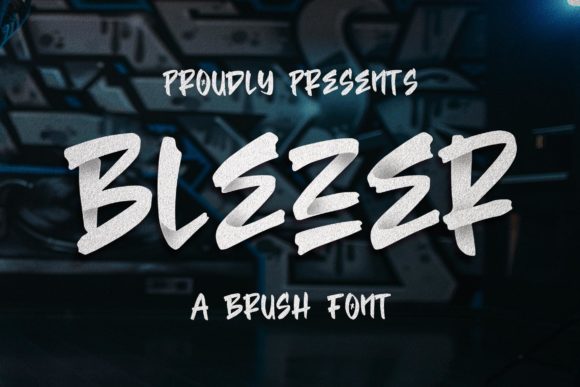
Blezer Font: A Bold and Powerful Display Font for Your Creative Projects
Are you looking for a font that can help your ideas stand out from the crowd? Look no further than the Blezer Font, a bold and chunky lettered brushed display font that’s perfect for designers and crafters who want to make a statement. With its dramatic and powerful style, Blezer Font is sure to grab attention and leave a lasting impression.
What is Blezer Font?
Blezer Font is a unique and eye-catching display font that’s designed to add a touch of drama and sophistication to your creative projects. Its bold and chunky lettering style, combined with a brushed effect, gives it a distinctive look that’s both modern and edgy. Whether you’re working on a logo, poster, or social media graphic, Blezer Font is the perfect choice for adding a bit of attitude and flair.
Key Features of Blezer Font
- Bold and Chunky Lettering: Blezer Font features bold and chunky lettering that’s perfect for headlines, titles, and other display text.
- Brushed Effect: The font’s brushed effect gives it a textured, hand-crafted look that’s both modern and edgy.
- Dramatic and Powerful: Blezer Font is designed to make a statement, with a dramatic and powerful style that’s sure to grab attention.
- Easy to Read: Despite its bold style, Blezer Font is easy to read, even at smaller sizes.
- Versatile: Blezer Font is perfect for a wide range of creative projects, from logos and posters to social media graphics and more.
Who is Blezer Font for?
Blezer Font is perfect for designers and crafters who want to add a bit of drama and sophistication to their creative projects. Whether you’re working on a personal project or a client’s brief, Blezer Font is a great choice for:
- Graphic Designers: Blezer Font is perfect for graphic designers who want to create bold and eye-catching visuals for their clients.
- Crafters: Blezer Font is a great choice for crafters who want to add a bit of personality and style to their handmade projects.
- Social Media Enthusiasts: Blezer Font is perfect for social media enthusiasts who want to create bold and eye-catching graphics for their feeds.
How to Use Blezer Font
Using Blezer Font is easy! Here are a few tips to get you started:
- Pair it with a Simple Font: Pair Blezer Font with a simple font to create contrast and add visual interest to your design.
- Use it for Headlines: Blezer Font is perfect for headlines and titles, where its bold style can really make an impact.
- Experiment with Colors: Blezer Font looks great in a wide range of colors, so don’t be afraid to experiment and find the perfect hue for your design.
In conclusion, Blezer Font is a bold and powerful display font that’s perfect for designers and crafters who want to make a statement. With its dramatic and powerful style, Blezer Font is sure to grab attention and leave a lasting impression. Whether you’re working on a logo, poster, or social media graphic, Blezer Font is a great choice for adding a bit of attitude and flair. So why not give it a try and see the impact it can have on your creative projects?